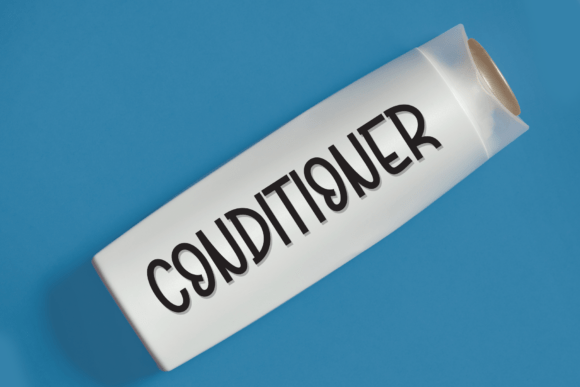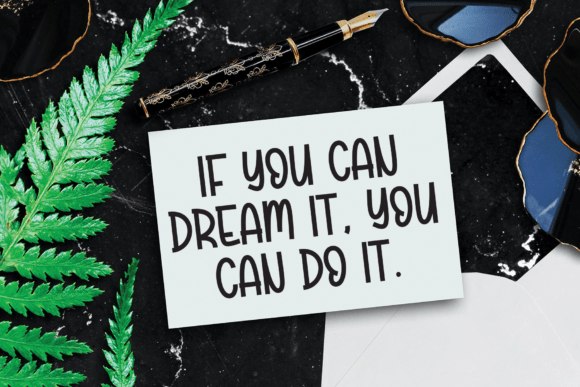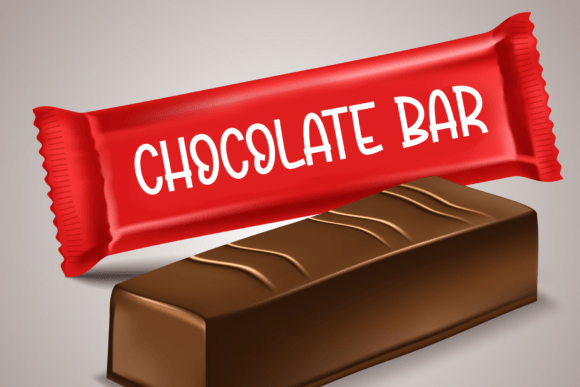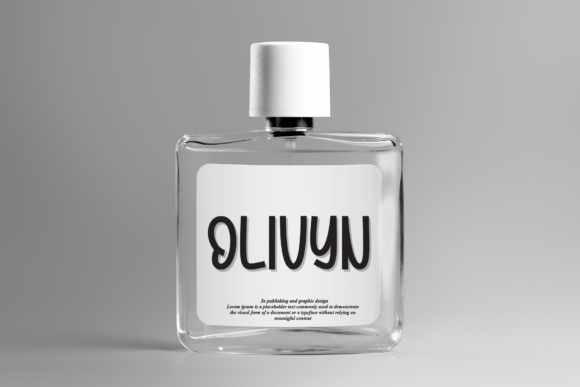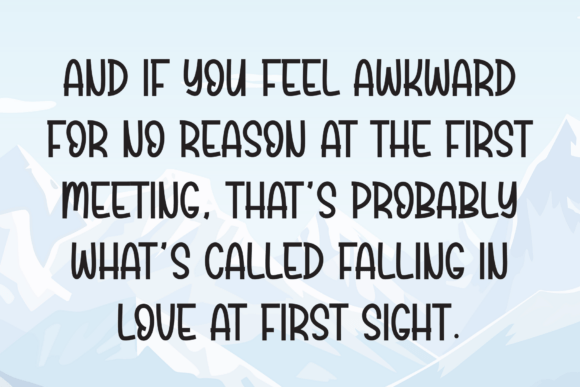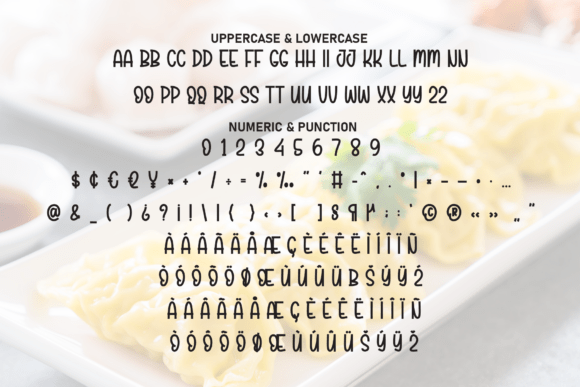
Introducing Cheese Dumplings Font: The Sweetest Addition to Your Design Collection
Are you tired of using the same old fonts in your designs? Do you want to add a touch of whimsy and playfulness to your creations? Look no further than Cheese Dumplings Font, a friendly and sugared handwritten display font that’s sure to delight. In this article, we’ll explore the charm of Cheese Dumplings Font and how it can elevate your designs to the next level.
The Charm of Cheese Dumplings Font
Cheese Dumplings Font is a unique and endearing font that’s perfect for designers and crafters who want to add a personal touch to their work. Its sugared handwritten style is reminiscent of childhood memories and warm, fuzzy feelings. The font’s playful glimmer is sure to make your creations stand out from the crowd and leave a lasting impression on your audience.
One of the best things about Cheese Dumplings Font is its versatility. Whether you’re designing wedding invitations, greeting cards, or social media graphics, this font is sure to add a touch of magic to your work. Its friendly and approachable style makes it perfect for a wide range of design projects, from formal events to casual gatherings.
Experience the Sweetness of Sweet Notes Font
At the heart of Cheese Dumplings Font is a beautiful handwritten style that’s sure to capture your heart. Sweet Notes Font, the inspiration behind Cheese Dumplings Font, is a delightful font that’s designed to add a touch of sweetness and mirth to your designs. Its unique and playful style is perfect for designers and crafters who want to create something truly special.
With Sweet Notes Font, you can add a personal touch to your designs that’s sure to resonate with your audience. Whether you’re creating wedding invitations, birthday cards, or social media graphics, this font is sure to make your work radiate sweetness and warmth.
Why Choose Cheese Dumplings Font?
So why choose Cheese Dumplings Font for your design projects? Here are just a few reasons why this font stands out from the crowd:
- Unique and Playful Style: Cheese Dumplings Font has a one-of-a-kind sugared handwritten style that’s sure to add a touch of whimsy to your designs.
- Versatile: This font is perfect for a wide range of design projects, from formal events to casual gatherings.
- Easy to Read: Despite its playful style, Cheese Dumplings Font is easy to read and understand, making it perfect for body text and headings.
- Customizable: With Cheese Dumplings Font, you can add your own personal touch to your designs and make them truly unique.
How to Use Cheese Dumplings Font
Using Cheese Dumplings Font in your design projects is easy. Here are a few tips to get you started:
- Pair it with Other Fonts: Cheese Dumplings Font pairs perfectly with other fonts, such as sans-serif fonts for body text and headings.
- Use it for Headings: This font is perfect for headings and titles, where its playful style can really shine.
- Add a Personal Touch: Use Cheese Dumplings Font to add a personal touch to your designs, such as in wedding invitations or birthday cards.
In conclusion, Cheese Dumplings Font is a unique and delightful font that’s sure to add a touch of sweetness and whimsy to your design projects. Its sugared handwritten style is perfect for designers and crafters who want to create something truly special. Whether you’re designing wedding invitations, greeting cards, or social media graphics, Cheese Dumplings Font is the perfect choice. So why wait? Download Cheese Dumplings Font today and experience the charm of this beautiful font for yourself.